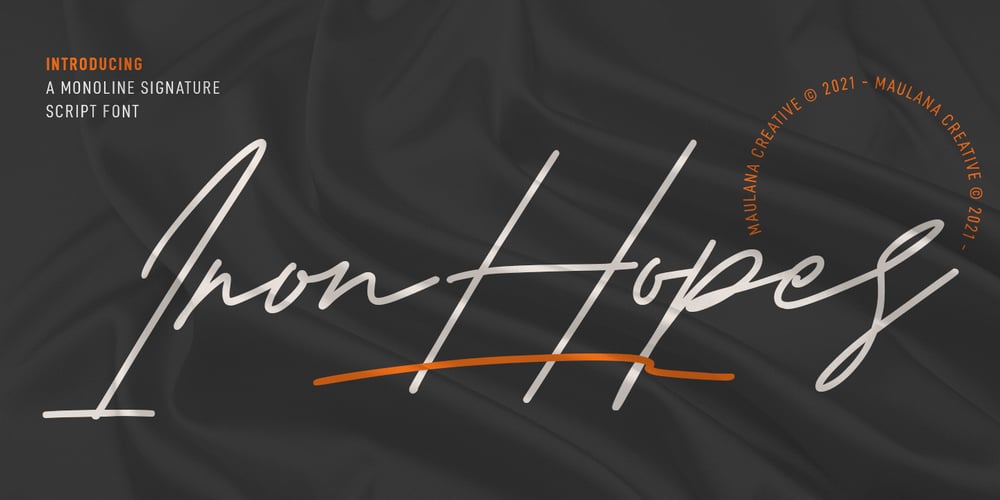
Ironhopes Monoline Signature
Ironhopes Monoline Signature font
Ironhopes Monoline Signature Font Family was designed by Gilang Maulana and published by Maulana Creative. Ironhopes Monoline Signature contains 2 styles and family package options. Ironhopes is a casual classic signature script font. With light mono-line stroke, fun character with some of ligatures and extra swash. To give you an extra creative work. Ironhopes font support multilingual more than 100+ language. This font is good for logo design, Social media, Movie Titles, Books Titles, a short text even a long text letter and good for your secondary text font with sans or serif. Make a stunning work with Ironhopes font. Cheers, MaulanaCreative